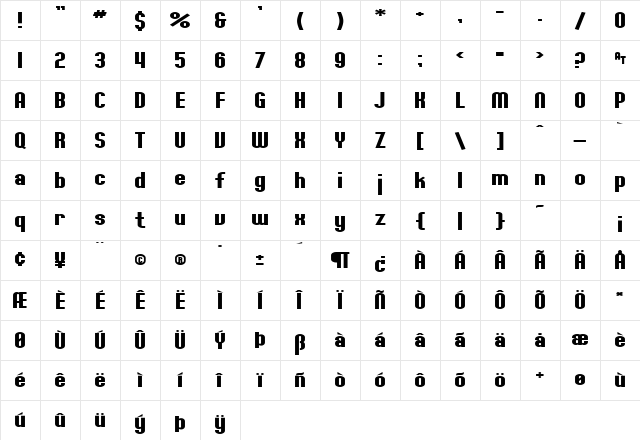
Complete SF Willamette Extended Bold glyph index. Displaying only characters natively supported by SF Willamette Extended Bold font.
SF Willamette Extended is a composed and adaptable typeface that performs quietly and consistently across a wide range of design contexts. Its bold stroke weight gives it real presence on the page.